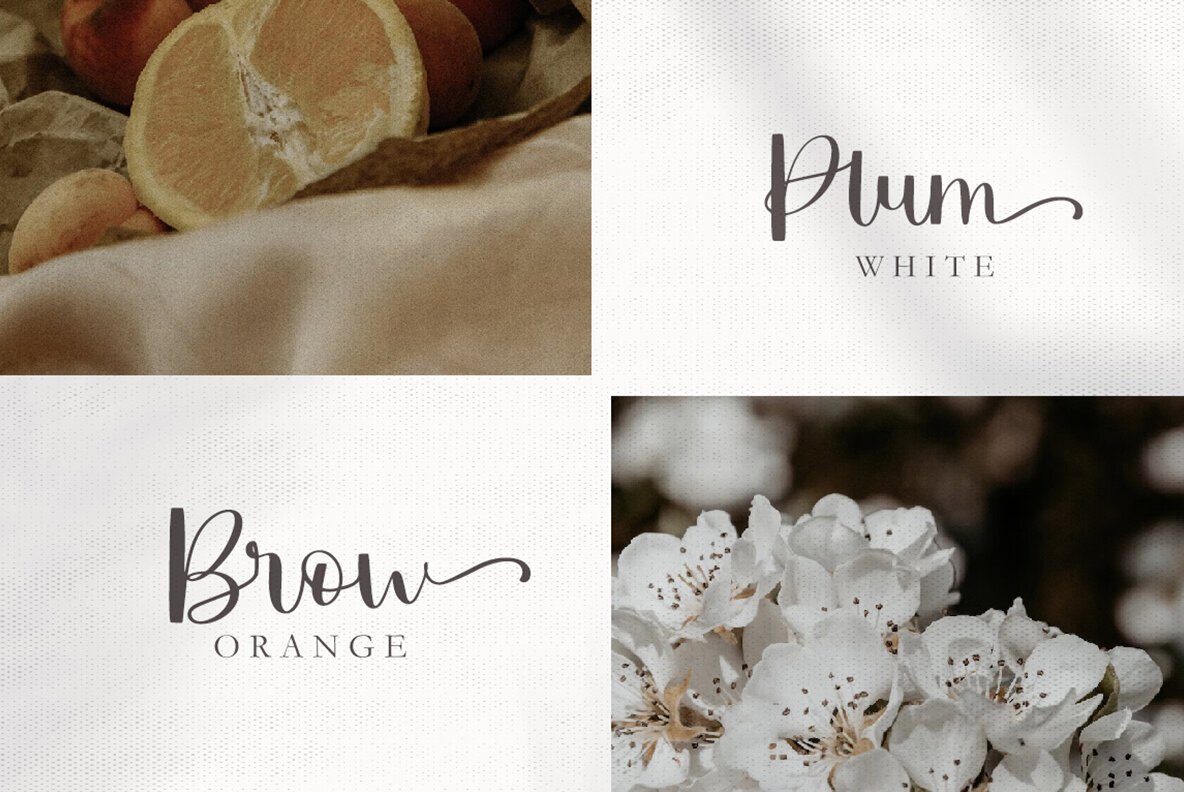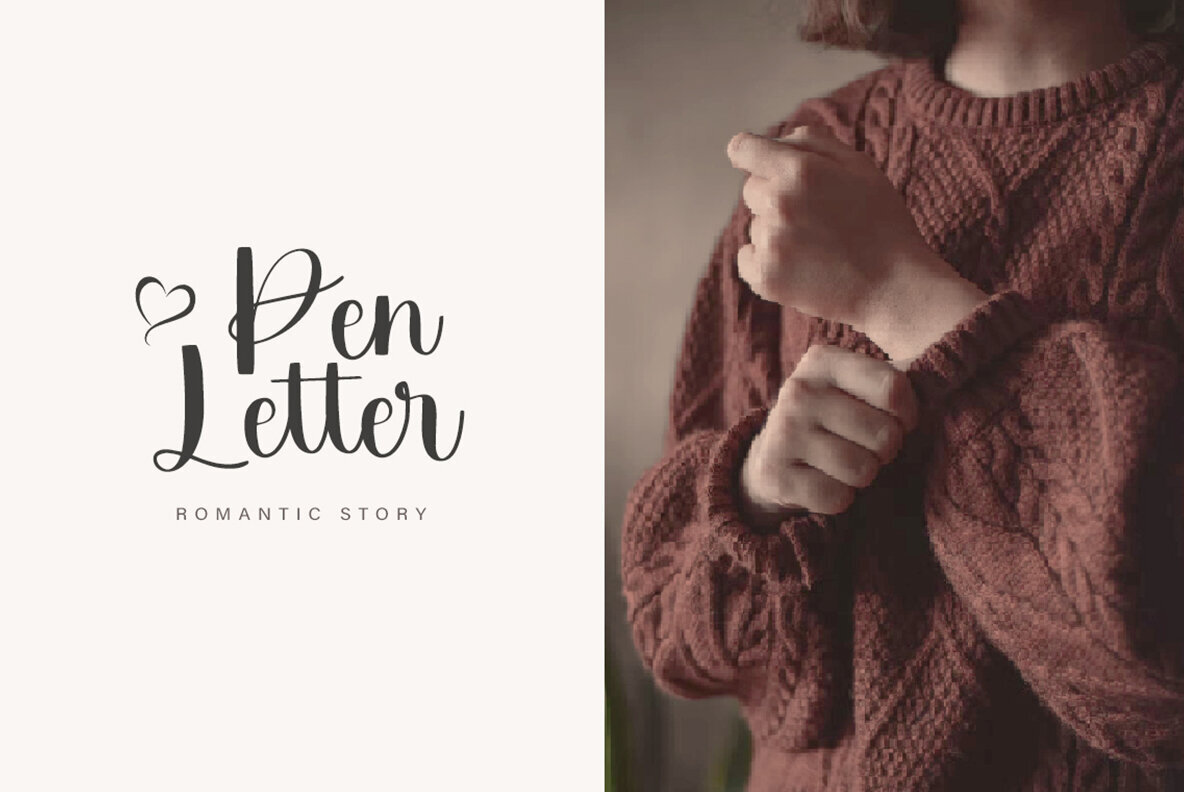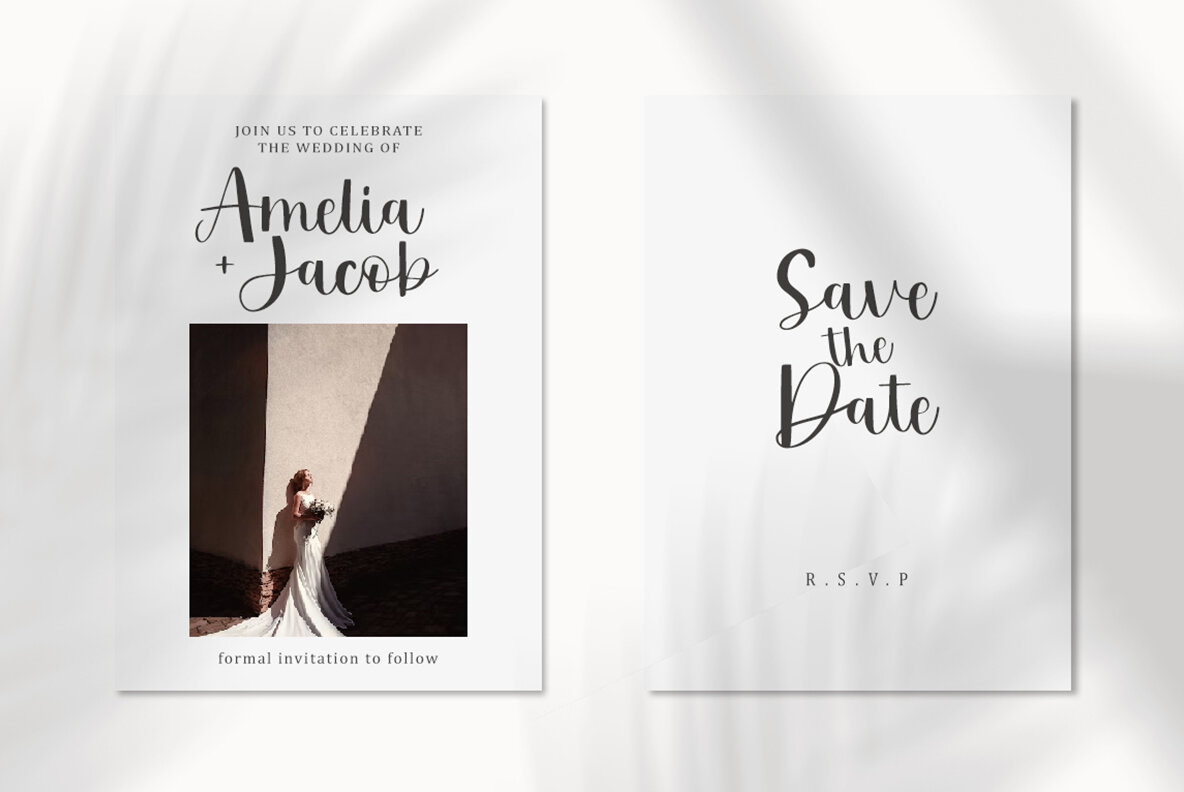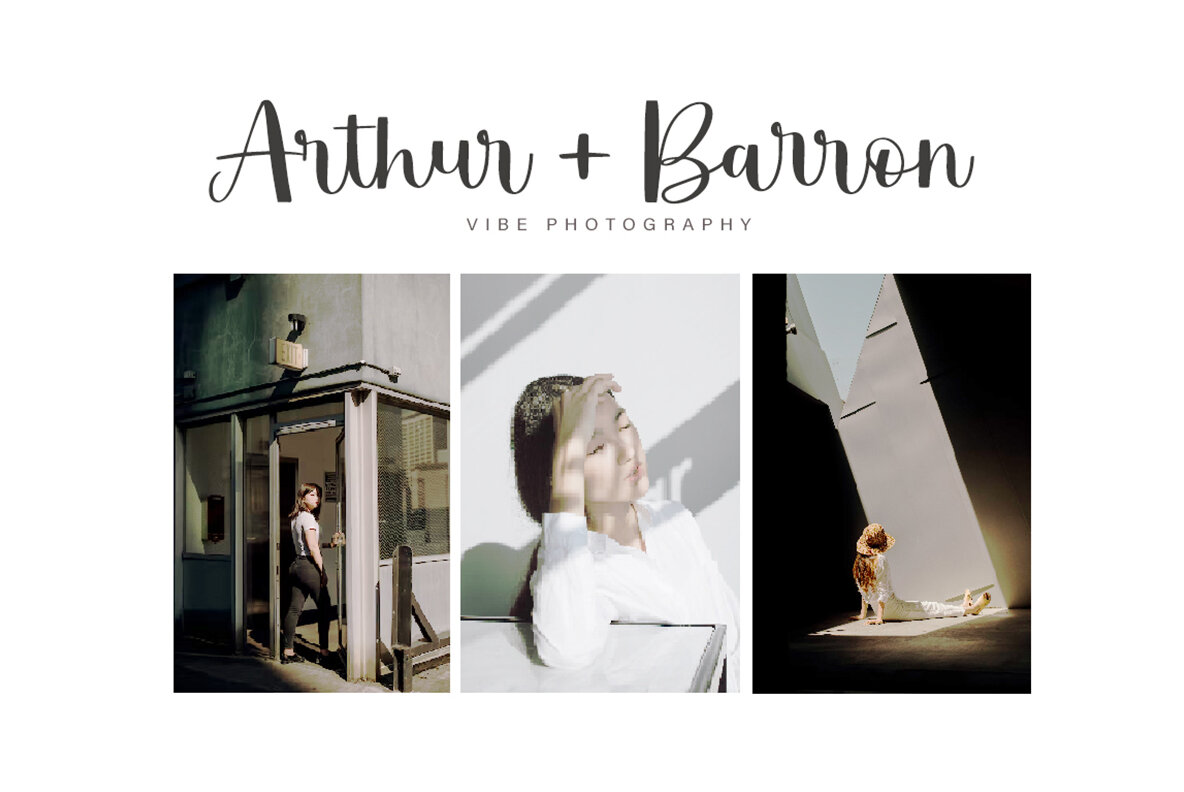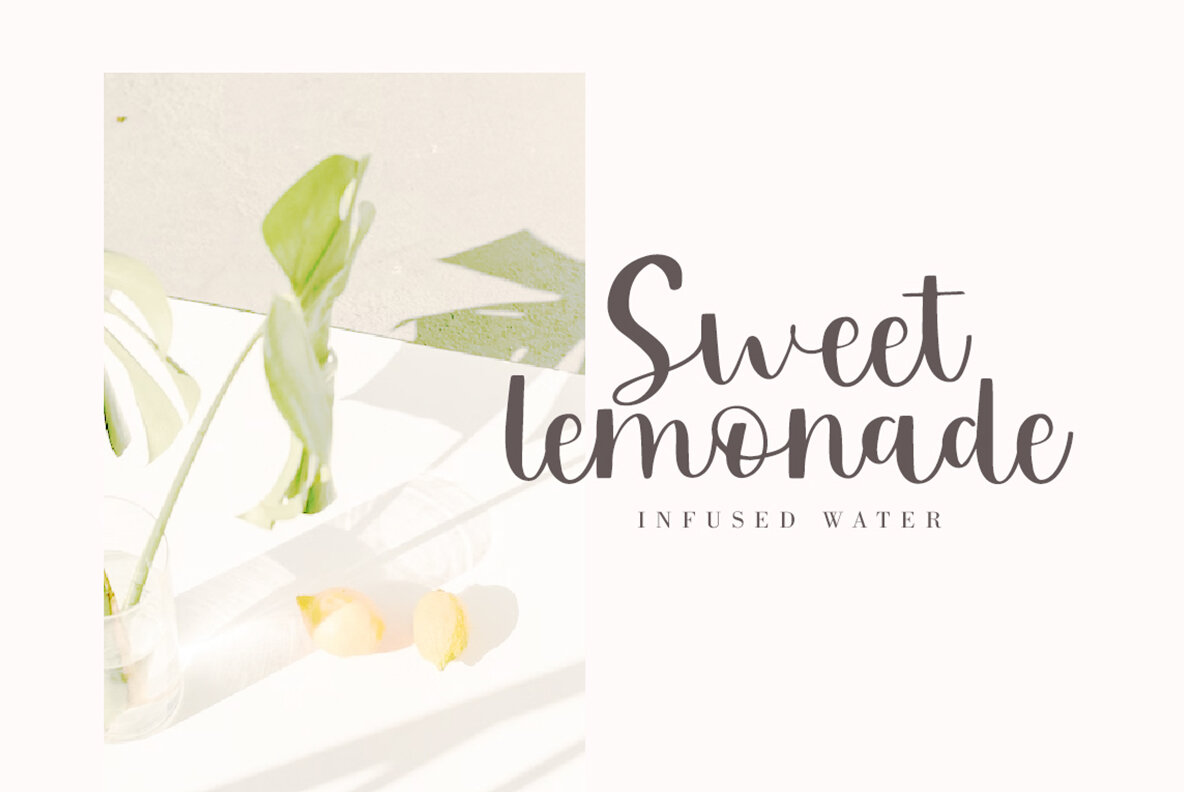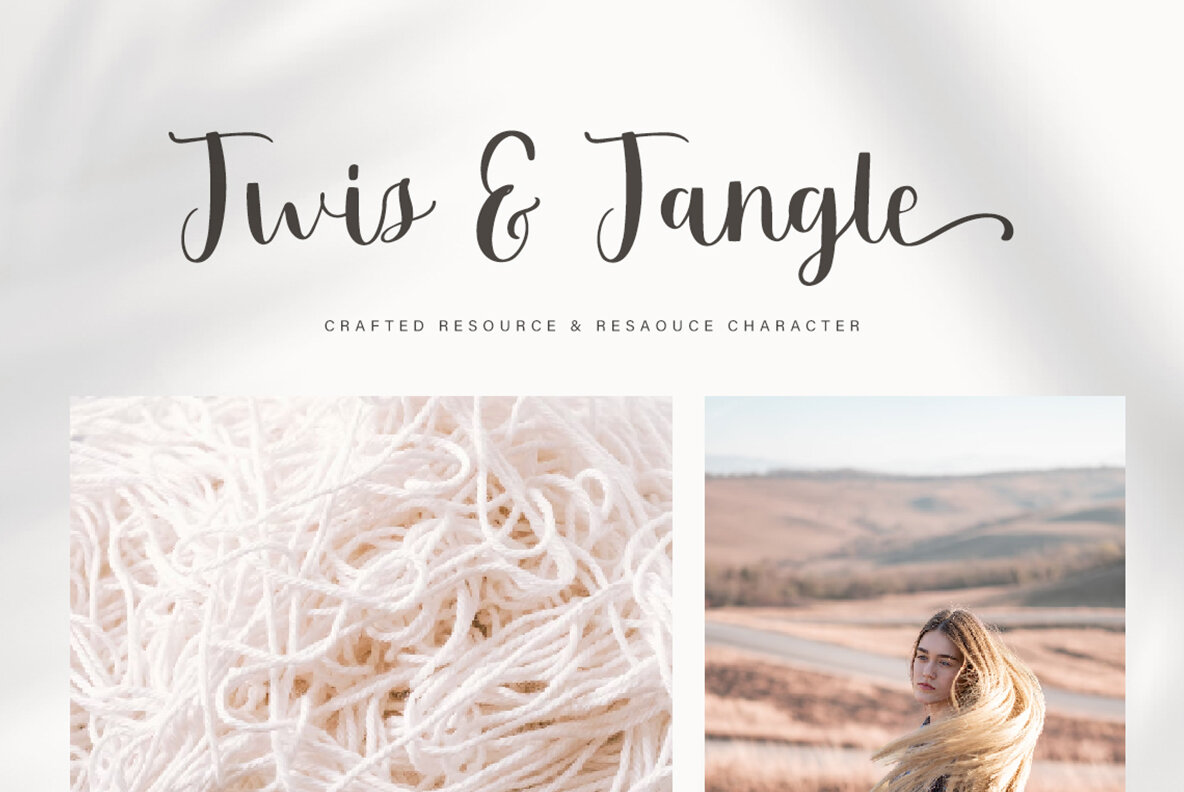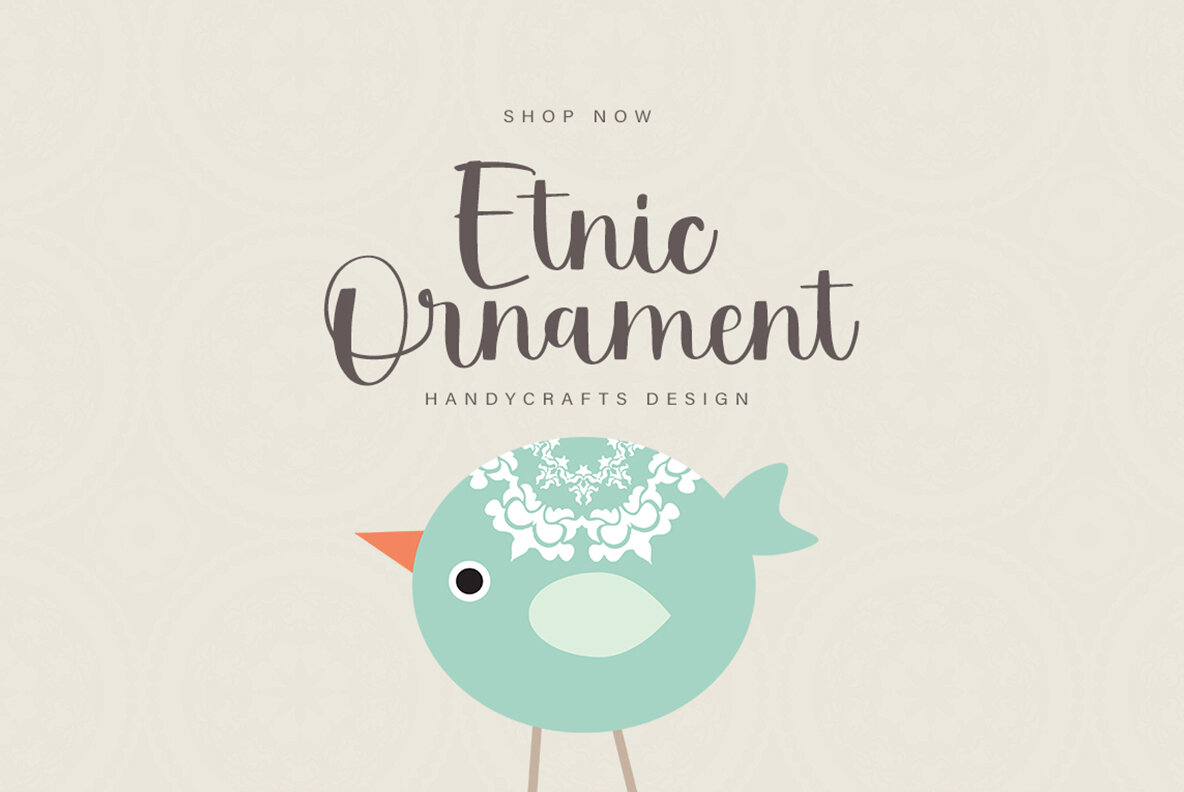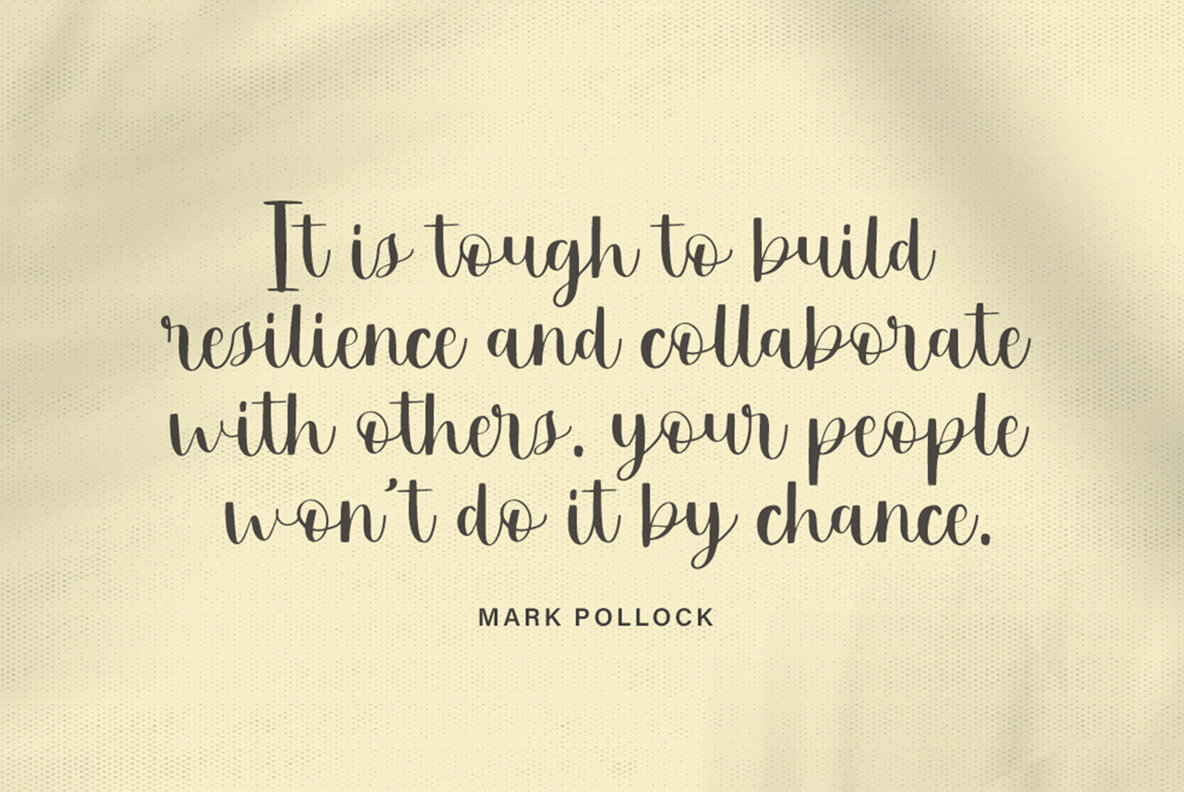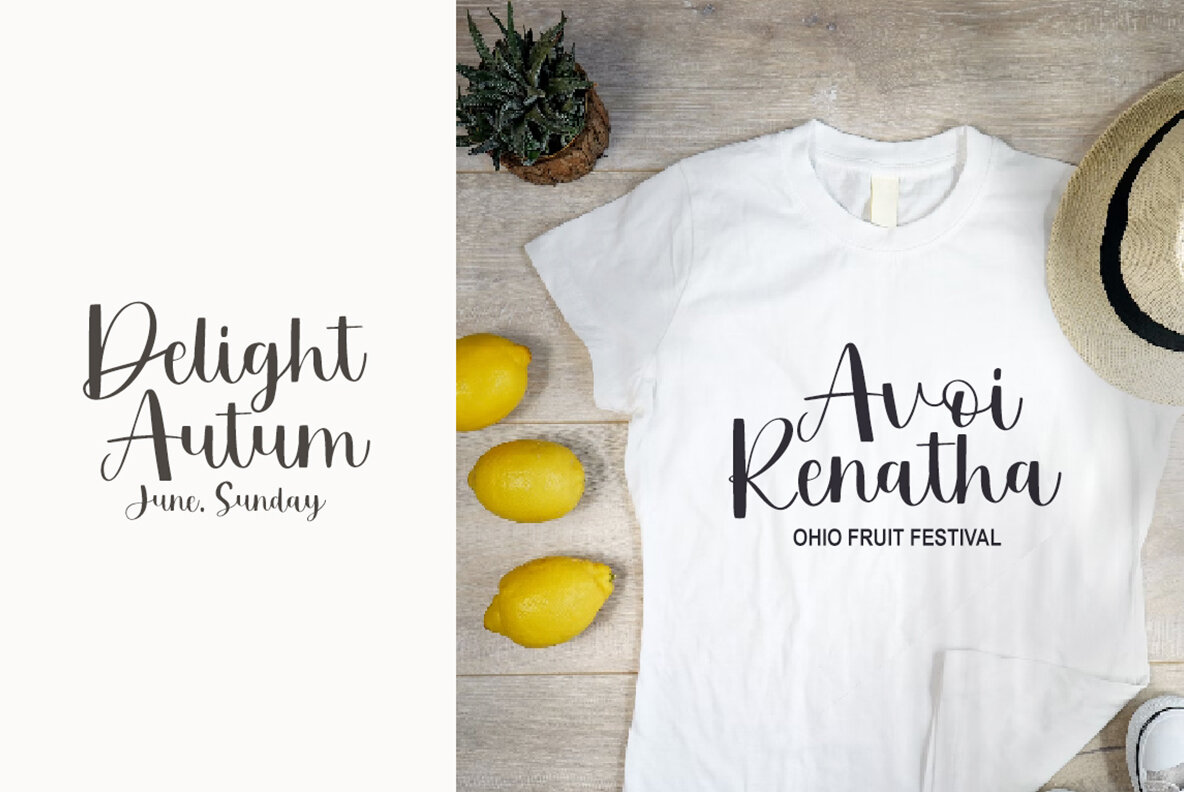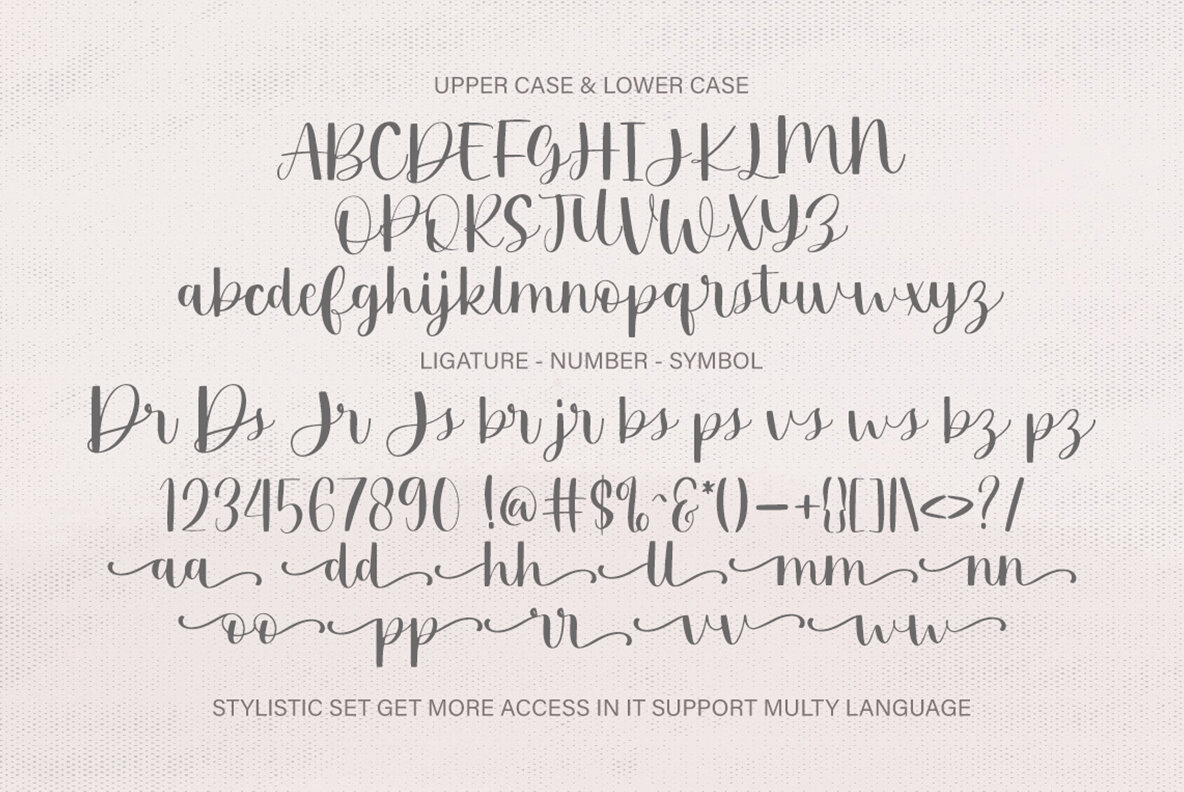
Ralley Font
Ralley Regular
Ralley is a script font that merges romance with a contemporary flair. Built with a comprehensive set of OpenType features, it offers a dynamic range of possibilities that enhance creative projects. With its fluid curves and sophisticated style, Ralley stands out as a versatile choice for those seeking a touch of elegance in design. This font serves perfectly for diverse modern applications, whether it be crafting invitations, wedding decor, or bespoke branding. Its playful, yet refined look makes it an ideal choice for headers, blogs, and creative circuits. Harness the charming aesthetics of Ralley for cards, prints, logos, and a myriad of other applications that demand both beauty and functionality.Ralley: The Romantic Script with Modern Elegance